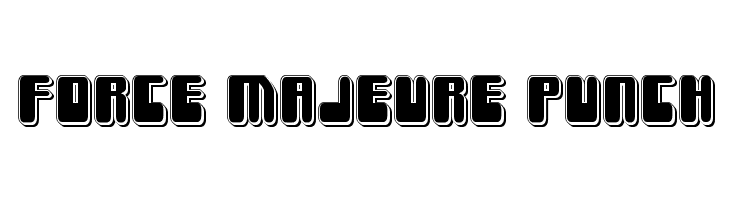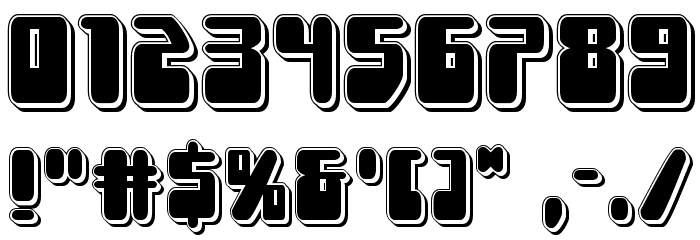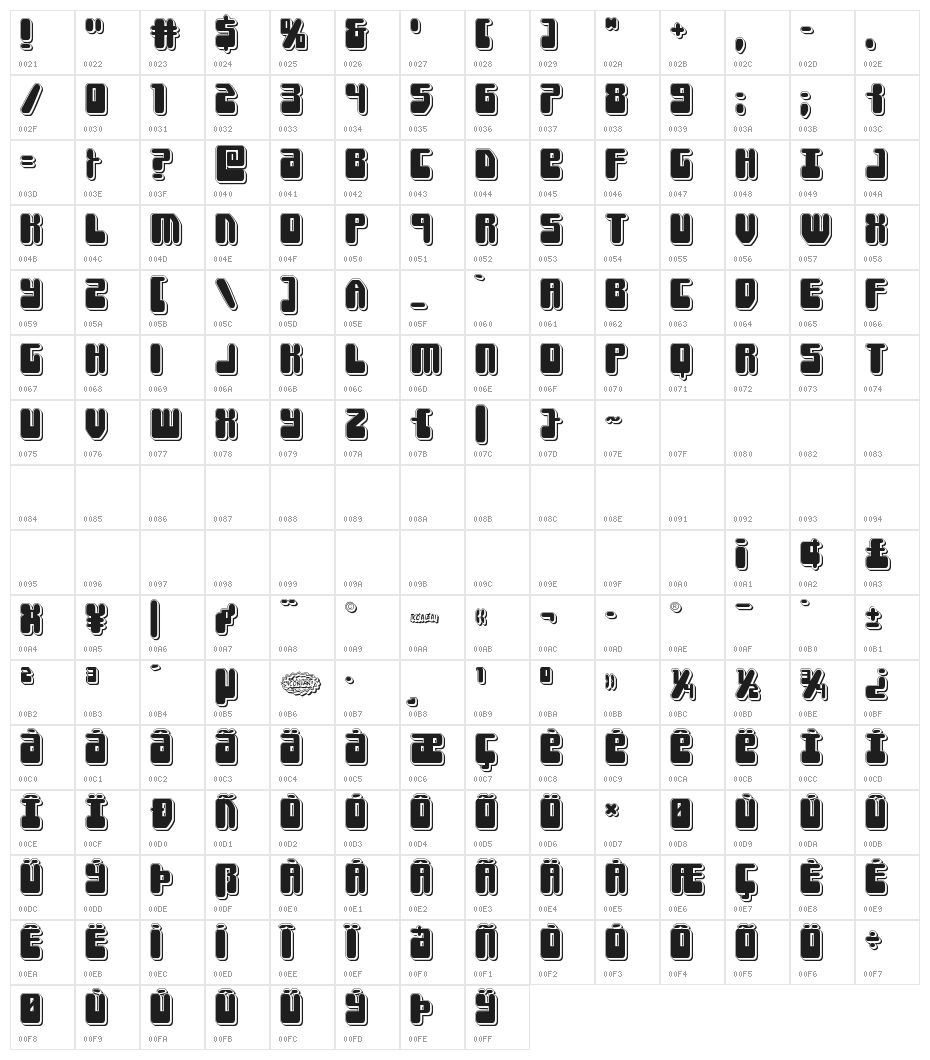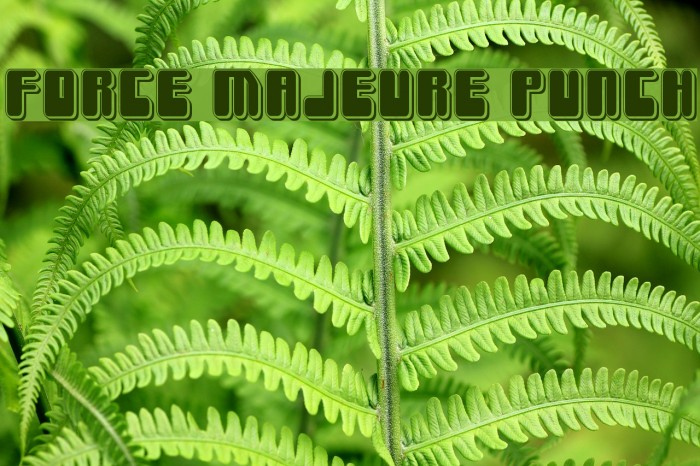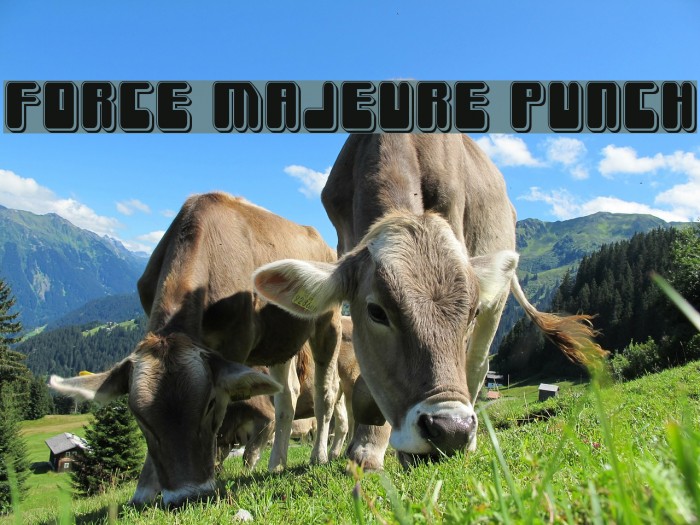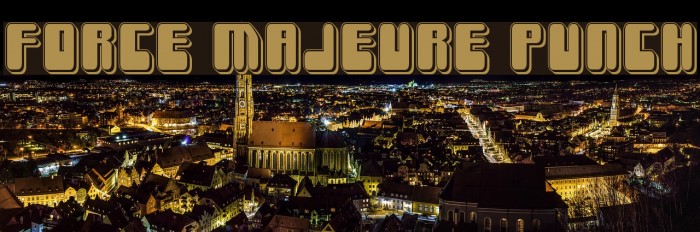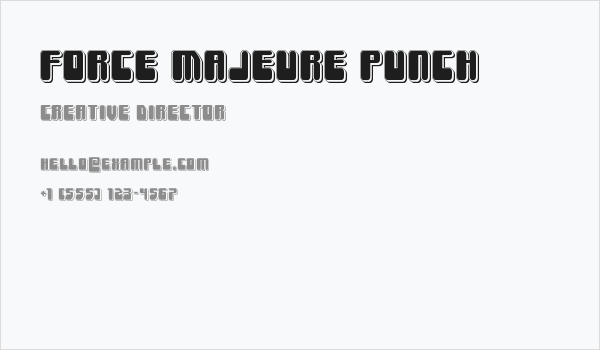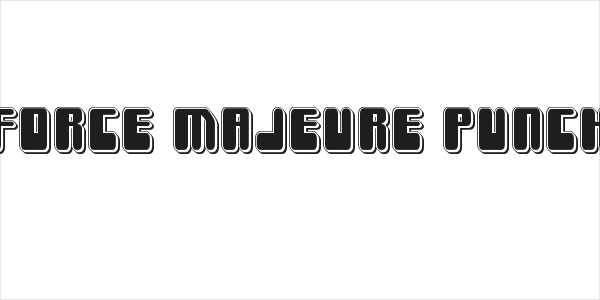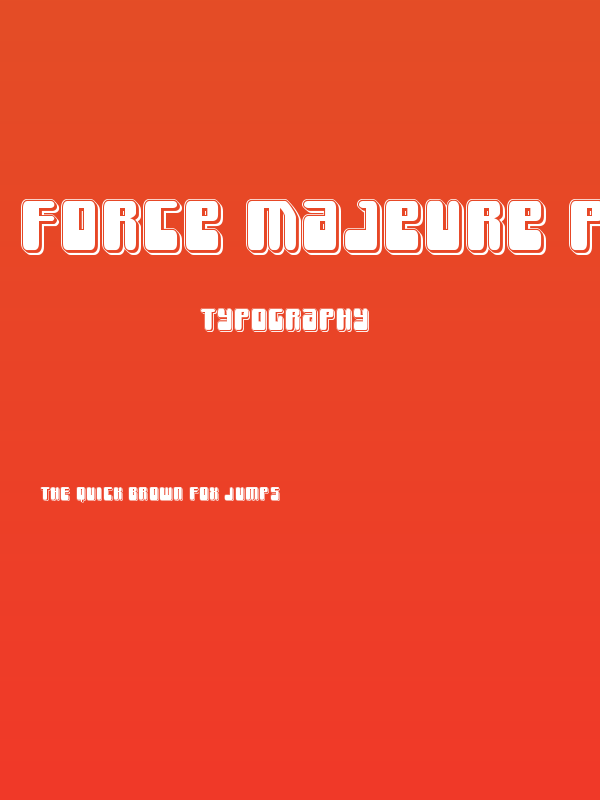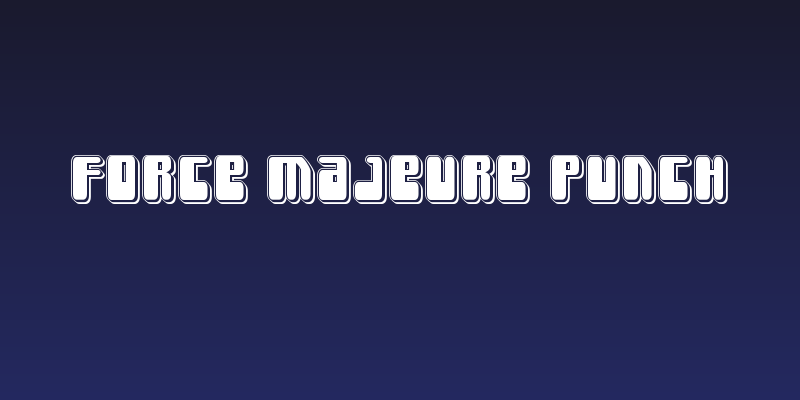
Force Majeure Punch Font
Force Majeure Punch Description
This font features a bold, geometric style with a strong presence. Each character is outlined with a thick border, creating a three-dimensional effect. The letters are uniformly wide, with rounded corners that soften the overall appearance. The design is consistent across uppercase, lowercase, and numerical characters, maintaining a cohesive look. Special characters are also included, matching the bold and structured aesthetic. The font's unique style makes it stand out, suitable for projects that require a strong visual impact.
| Proposed Projects | Ideal for posters, logos, and headlines where a strong, impactful font is needed. |